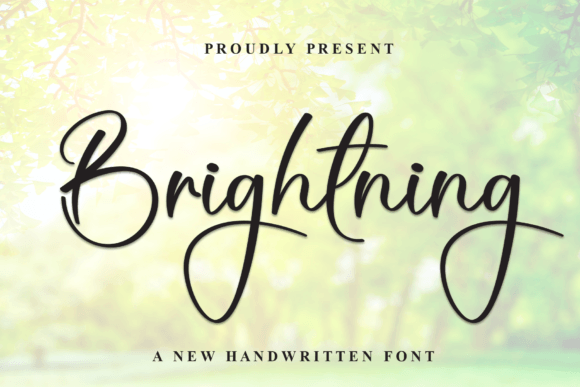
Introduction to Brightning Font
Brightning is a charming handwritten font that exudes warmth and friendliness.
With its smooth, flowing strokes and playful curves, it brings a sense of whimsy to invitations, packaging, and social media graphics Spread joy and delight with the inviting charm of this typeface.